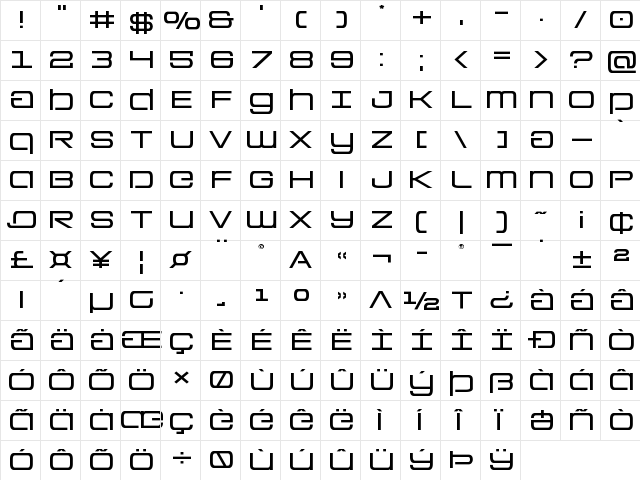
Colony Marines Expanded Expanded
Design Context for Colony Marines Expanded Typeface
Colony Marines Expanded is a composed and adaptable typeface that performs quietly and consistently across a wide range of design contexts.